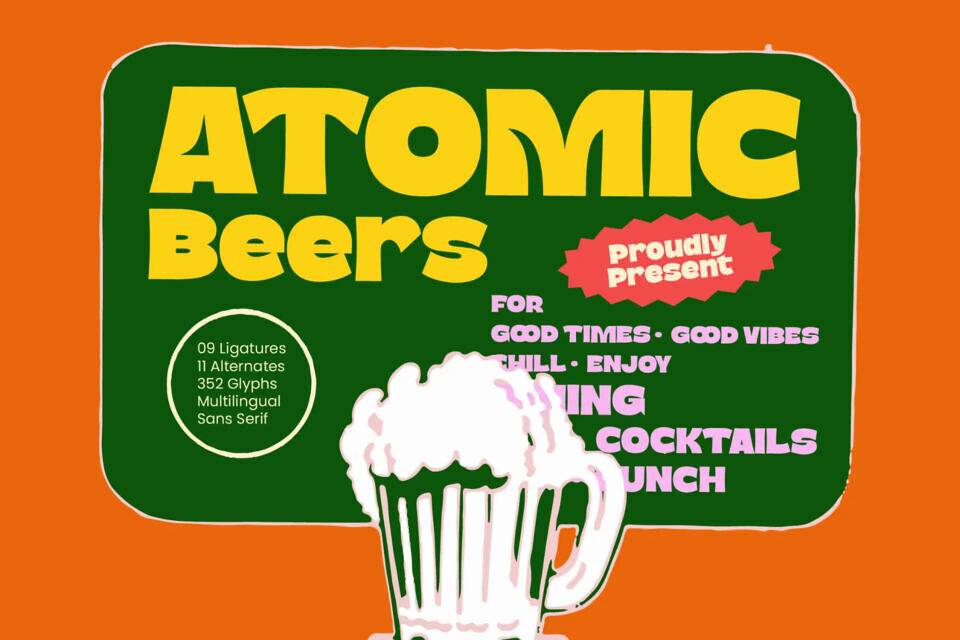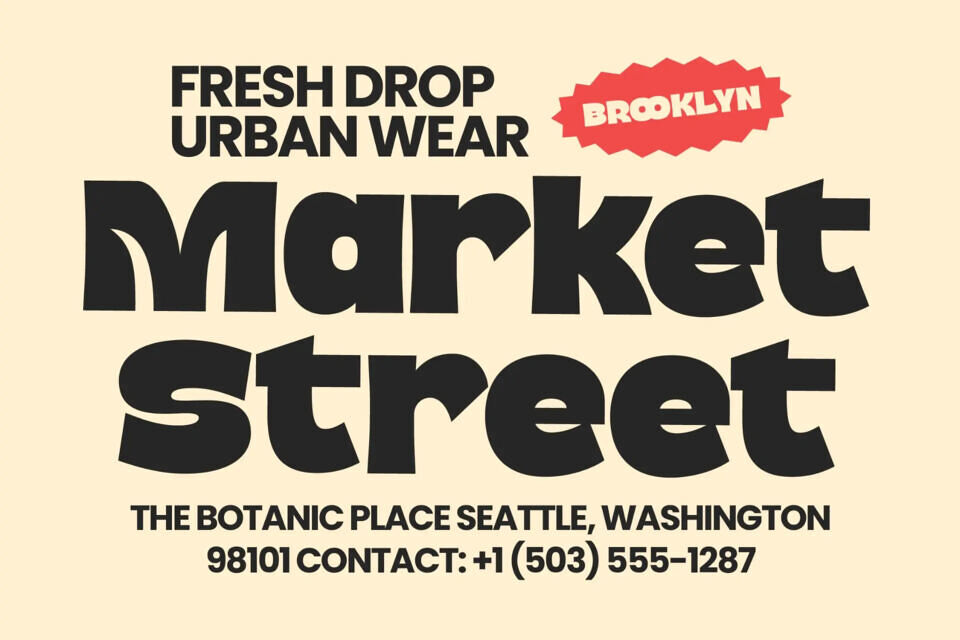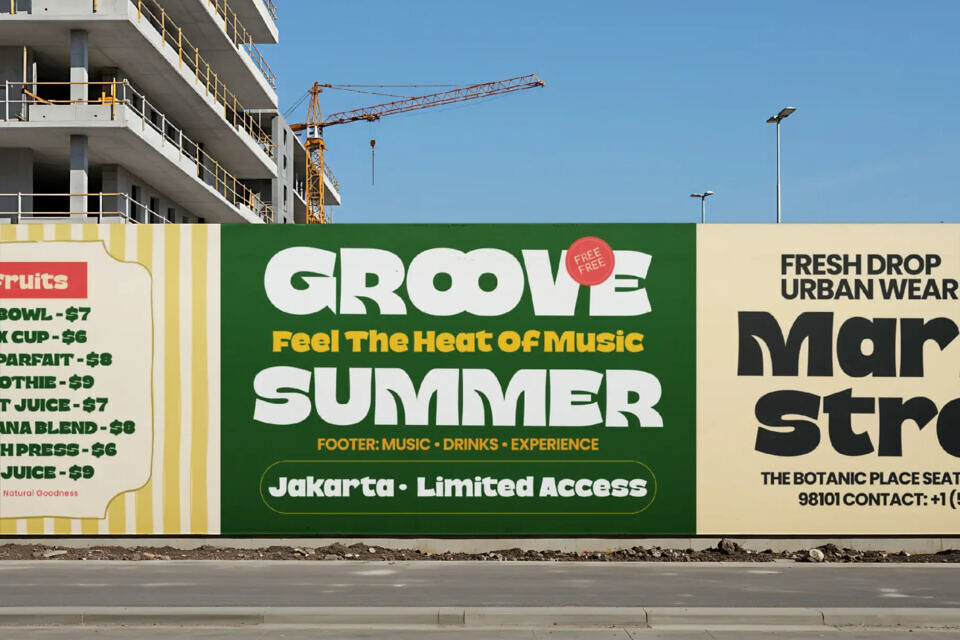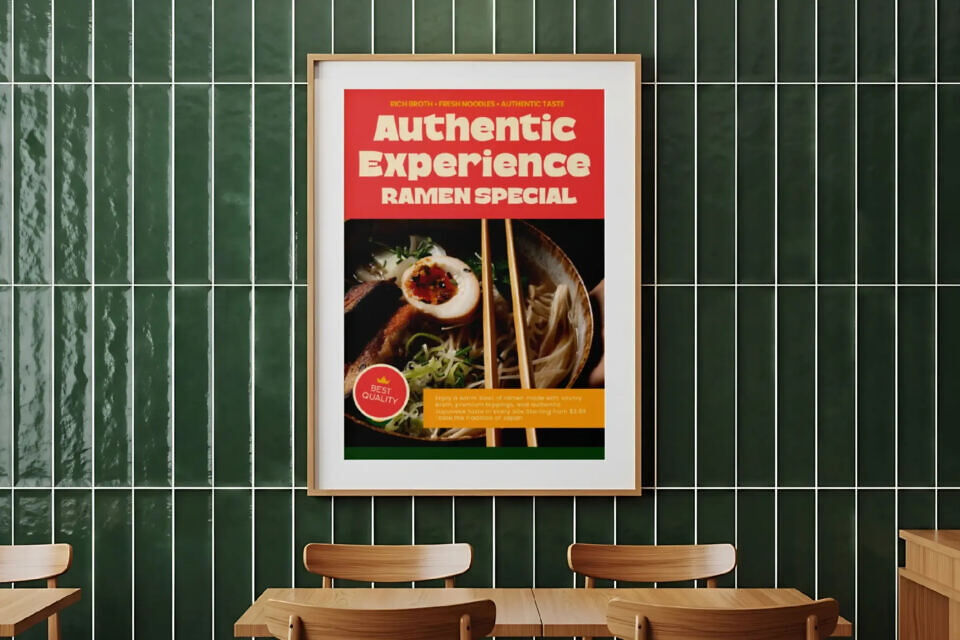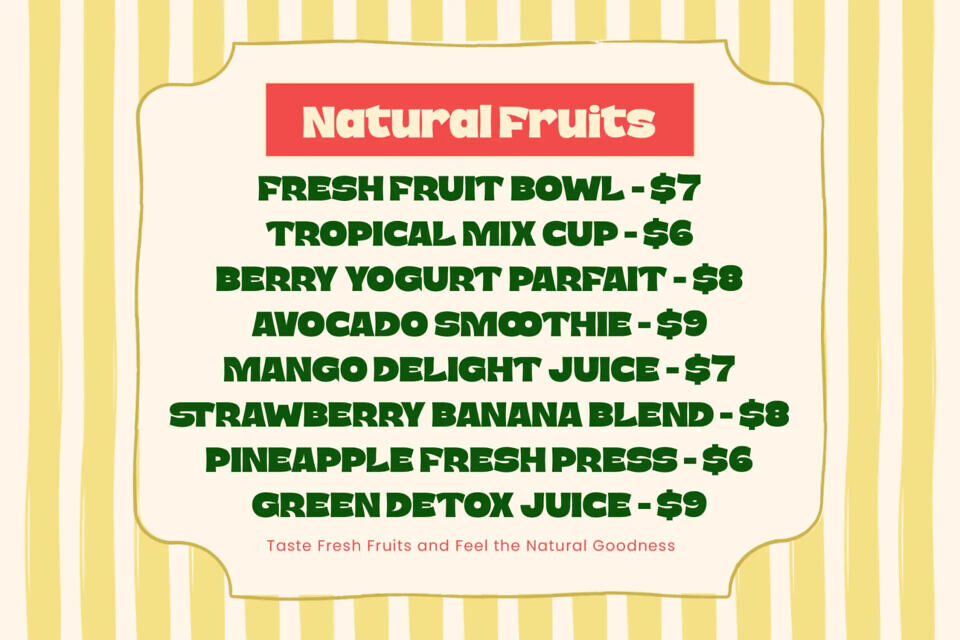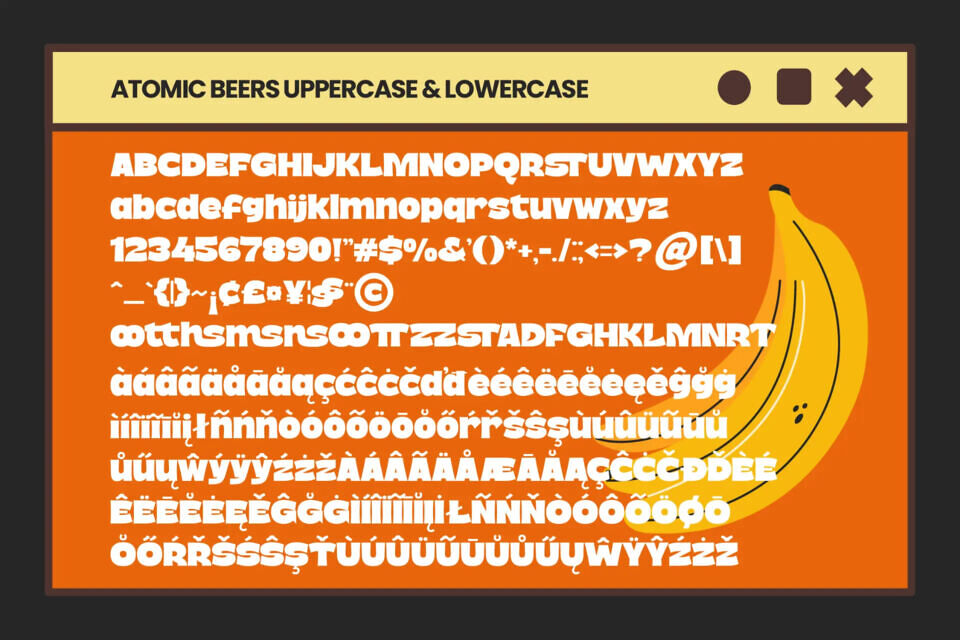
Atomic Beers is a powerhouse of visual dominance, blending vintage-inspired energy with a contemporary edge. Its heavy, high-impact letterforms are designed to anchor any layout, ensuring your message is not just seen, but remembered. This typeface strikes a perfect balance between playful charisma and professional polish, making it a definitive choice for designers looking to break through the noise.
Atomic Beers Font is the perfect choice for craft packaging design, editorial headers, event posters, and lifestyle apparel. Its thick, assertive strokes excel in large formats where bold communication is paramount. Whether you are launching a boutique beverage line or a trendy urban campaign, this typeface provides the distinctive personality needed to establish a cohesive brand voice.